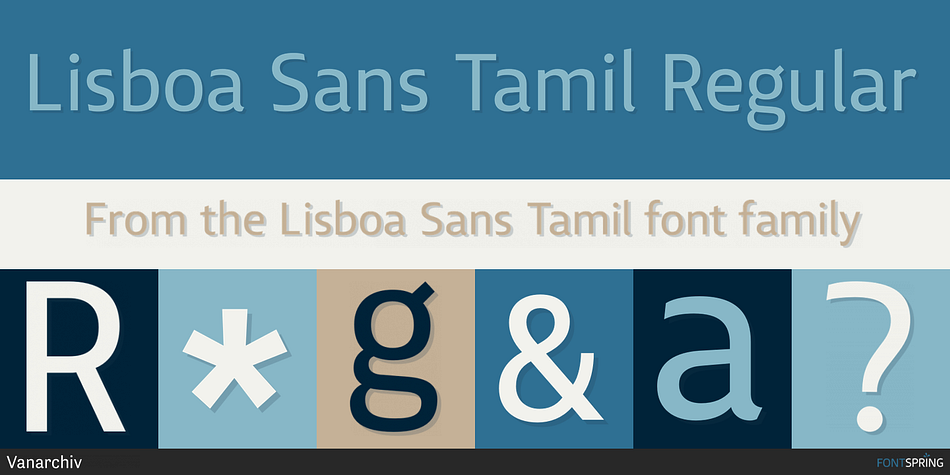
Lisboa Sans Tamil Regular
Designed by Ricardo Santos, Lisboa Sans Tamil is a sans serif font family. This typeface has ten styles and was published by Vanarchiv.
The design approach from this humanist sans-serif is much more simple and neutral than Lisboa Tamil (lacks the hook-head terminals). Latin transliteration characters were also included.